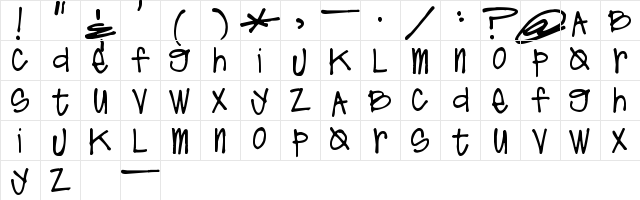
Pea Lindsey Unicase Regular
Design Context for Pea Lindsey Unicase
Pea Lindsey Unicase is a composed and adaptable typeface that performs quietly and consistently across a wide range of design contexts.